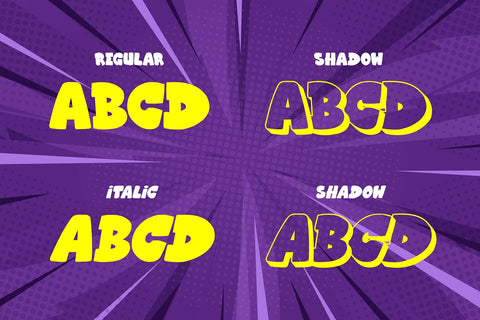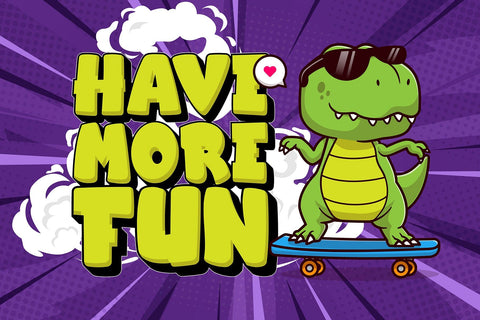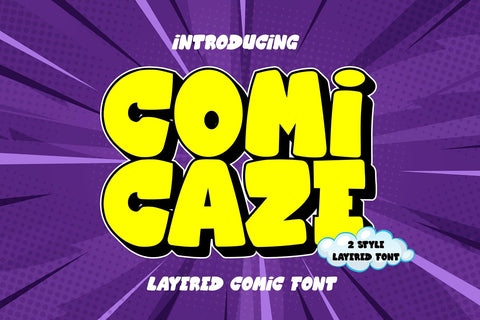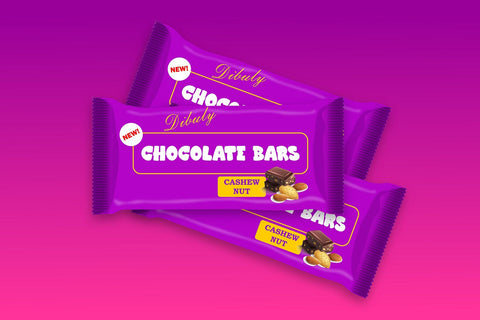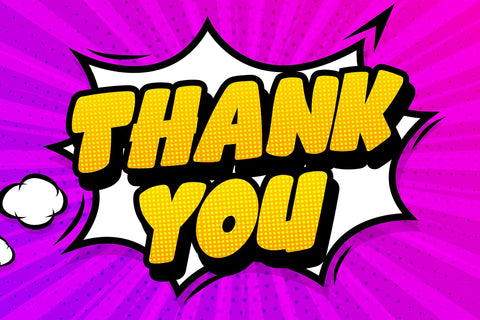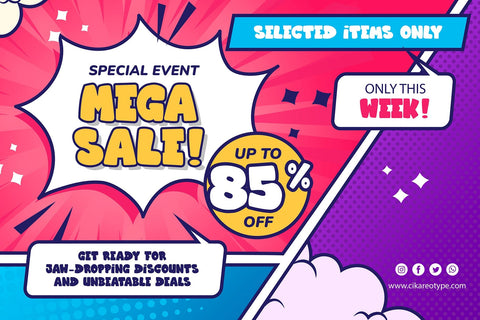
Comicaze - 3d Layered Comic Font
"Comicaze" is described as a layered comic display font. Layered fonts are designed with multiple layers, allowing users to stack different styles on top of each other to create a visually dynamic effect.
In the context of "Comicaze," being a comic display font, it likely features characters with a playful and expressive style commonly associated with comic books. The layered design suggests that you can apply different styles or effects to the font, adding depth and dimension to the text.
- Graffiti Characters looks